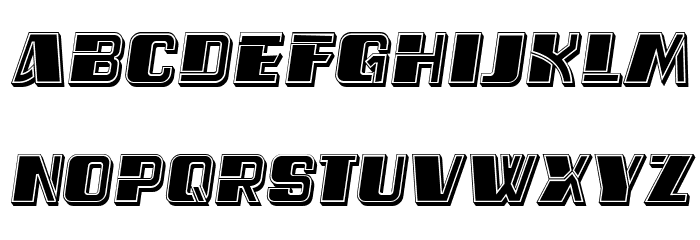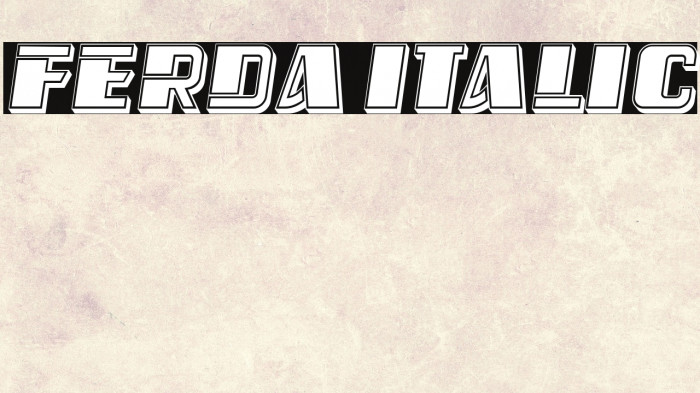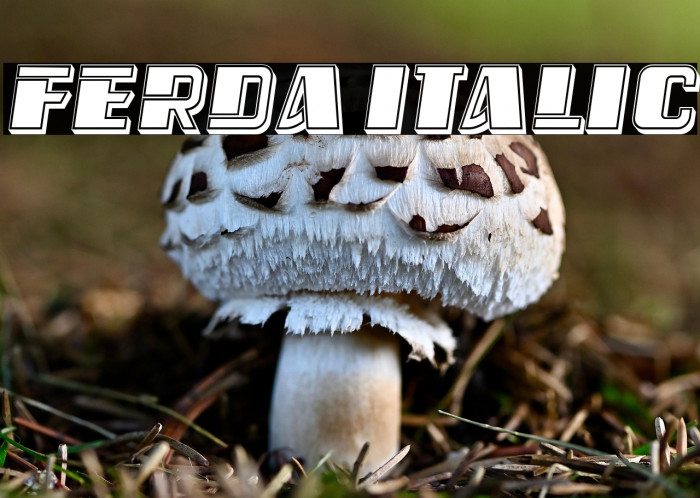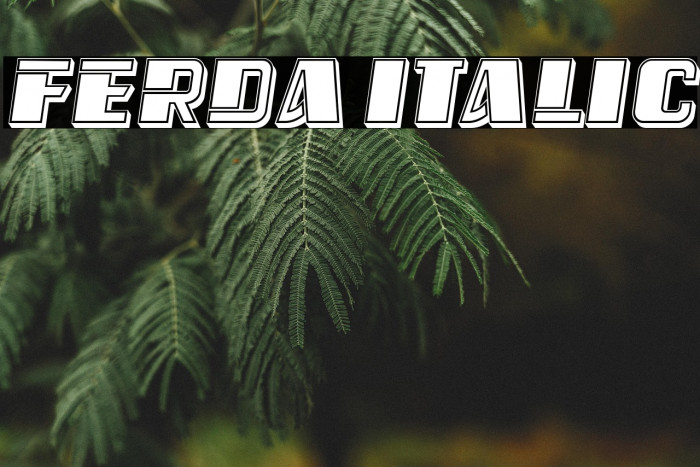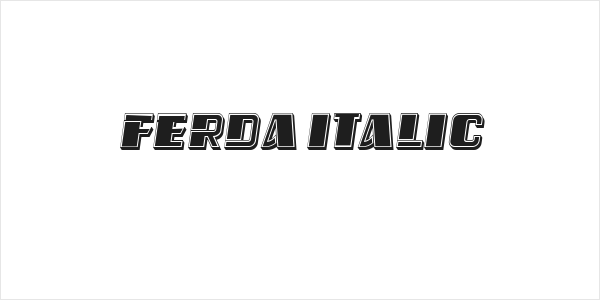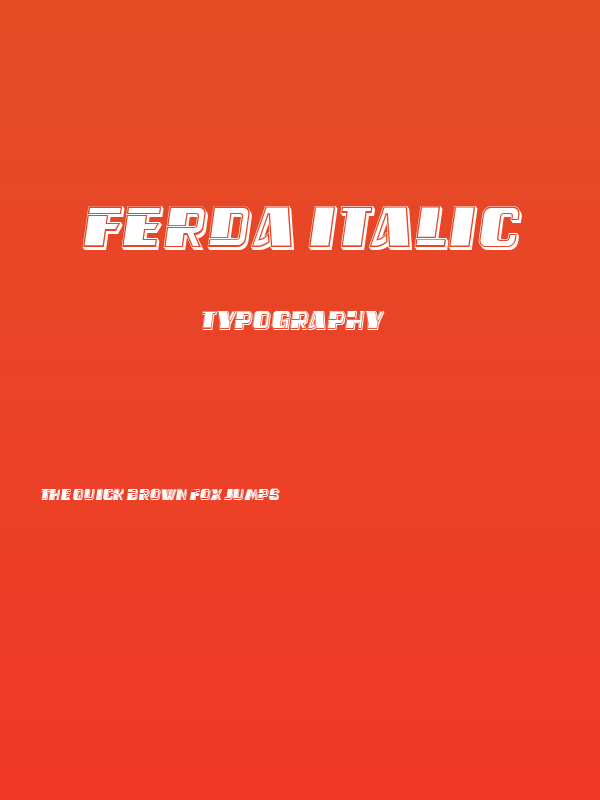
Ferda Italic Font
This font features a bold and dynamic design with a strong geometric influence. The characters are outlined with a thick border, creating a striking contrast between the filled and unfilled spaces. The italic slant adds a sense of motion and energy, making it ideal for attention-grabbing headlines or titles. The uppercase letters are consistent in height, providing a uniform appearance, while the angular cuts and sharp edges give it a modern and edgy feel. This font is perfect for projects that require a bold statement, such as posters, logos, or branding materials.
A bold, geometric, italic font with strong outlines and a modern, edgy style.
- Font: Ferda Italic
- Proposed Projects: Ideal for posters, logos, branding, and any project needing a bold, dynamic typeface.